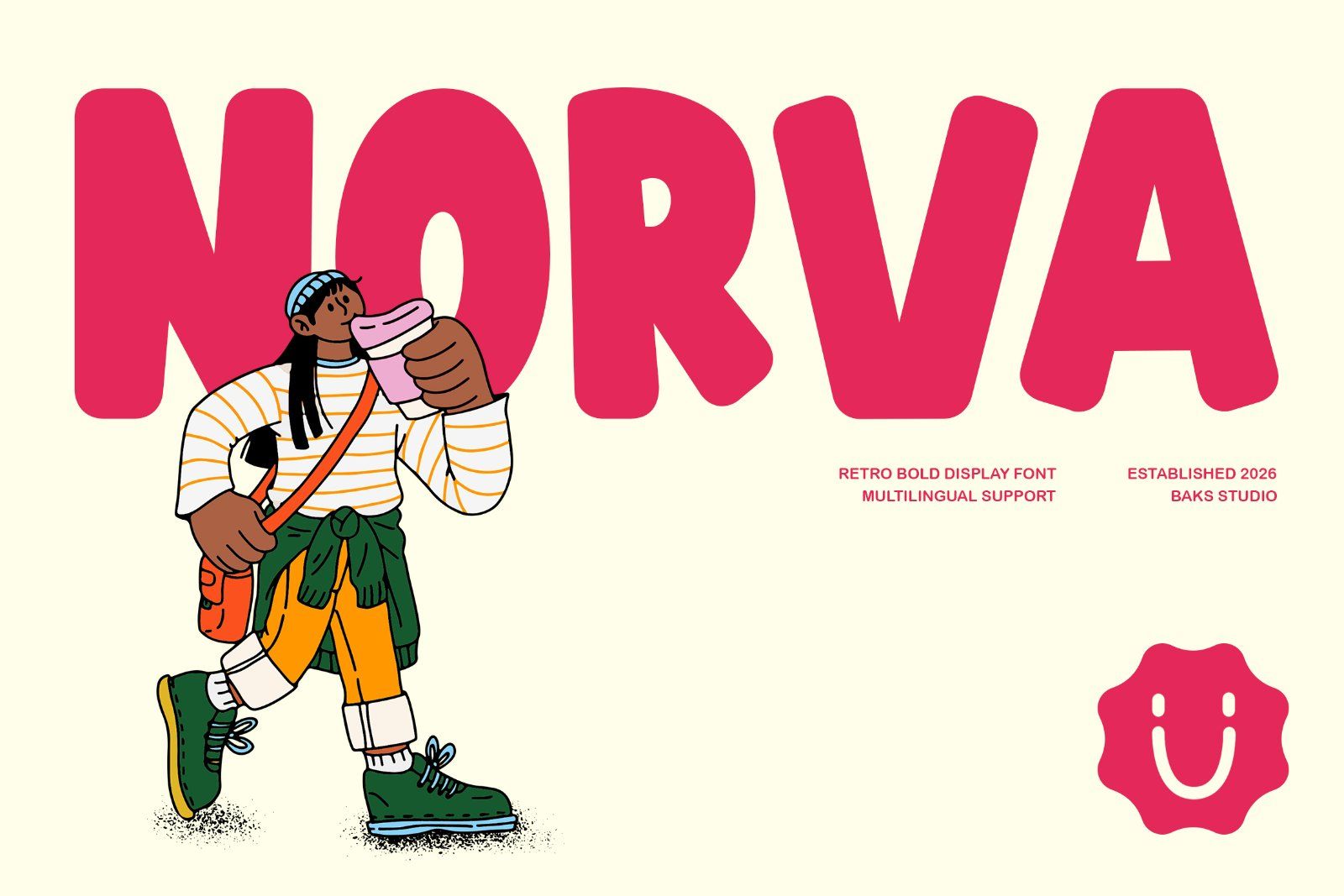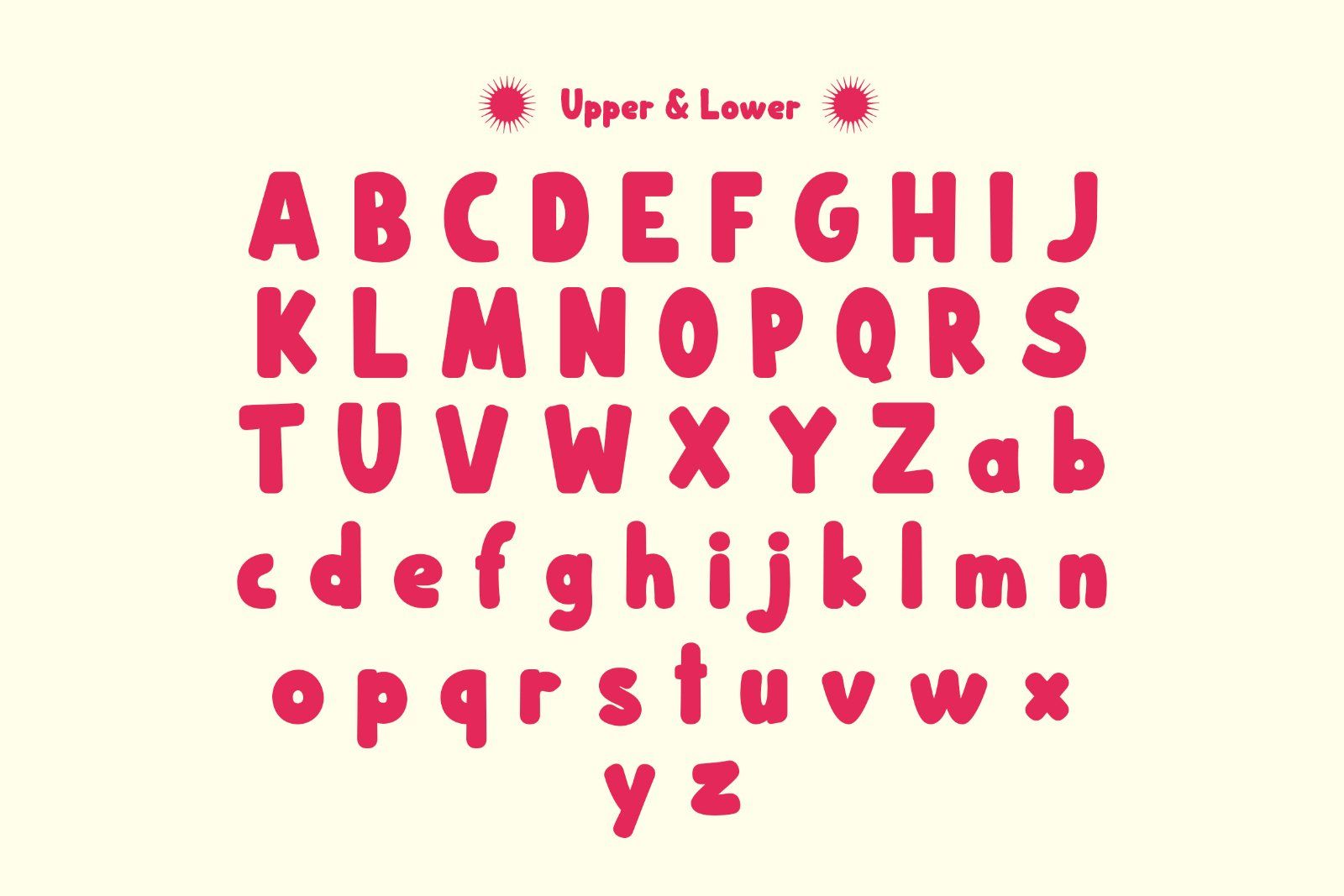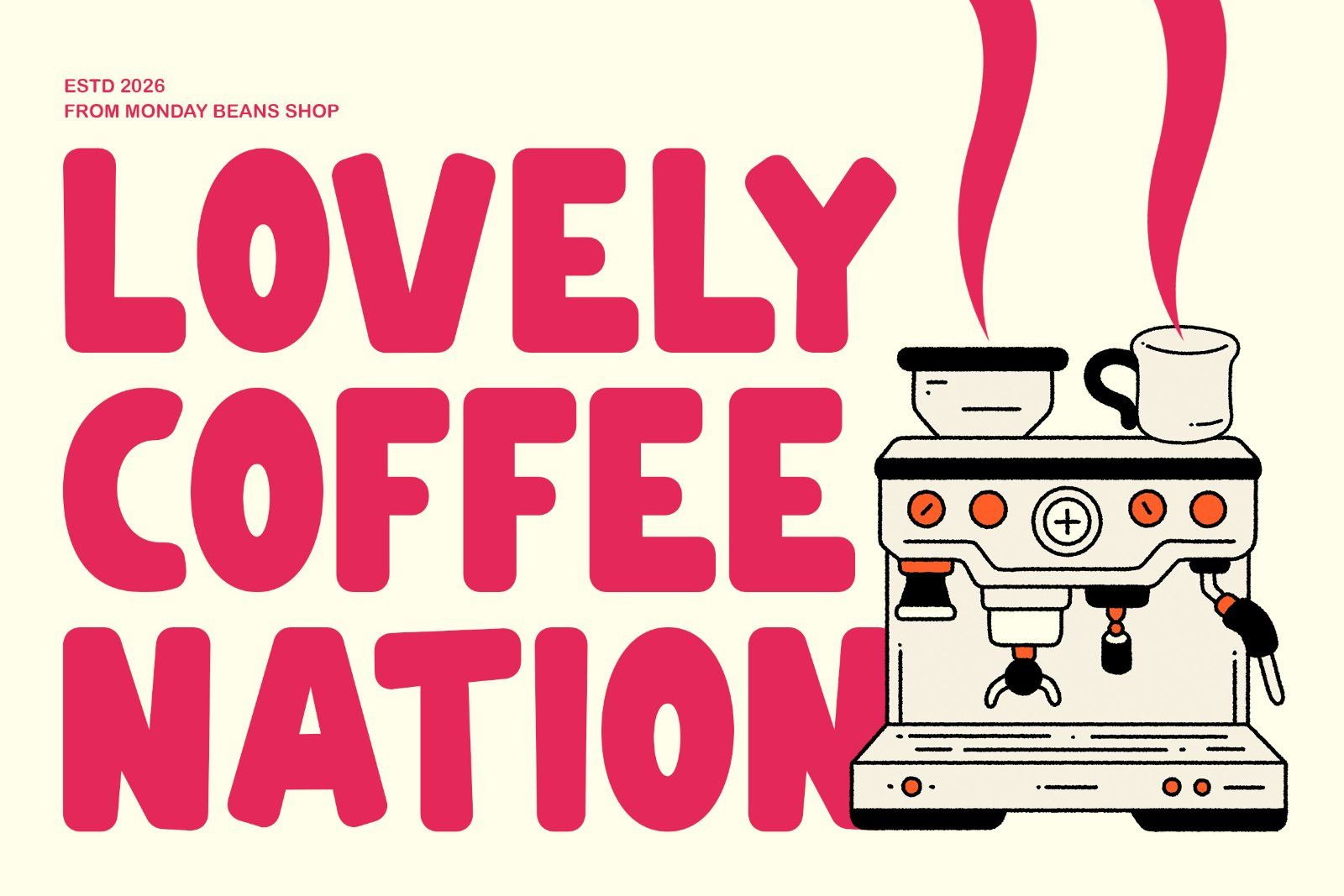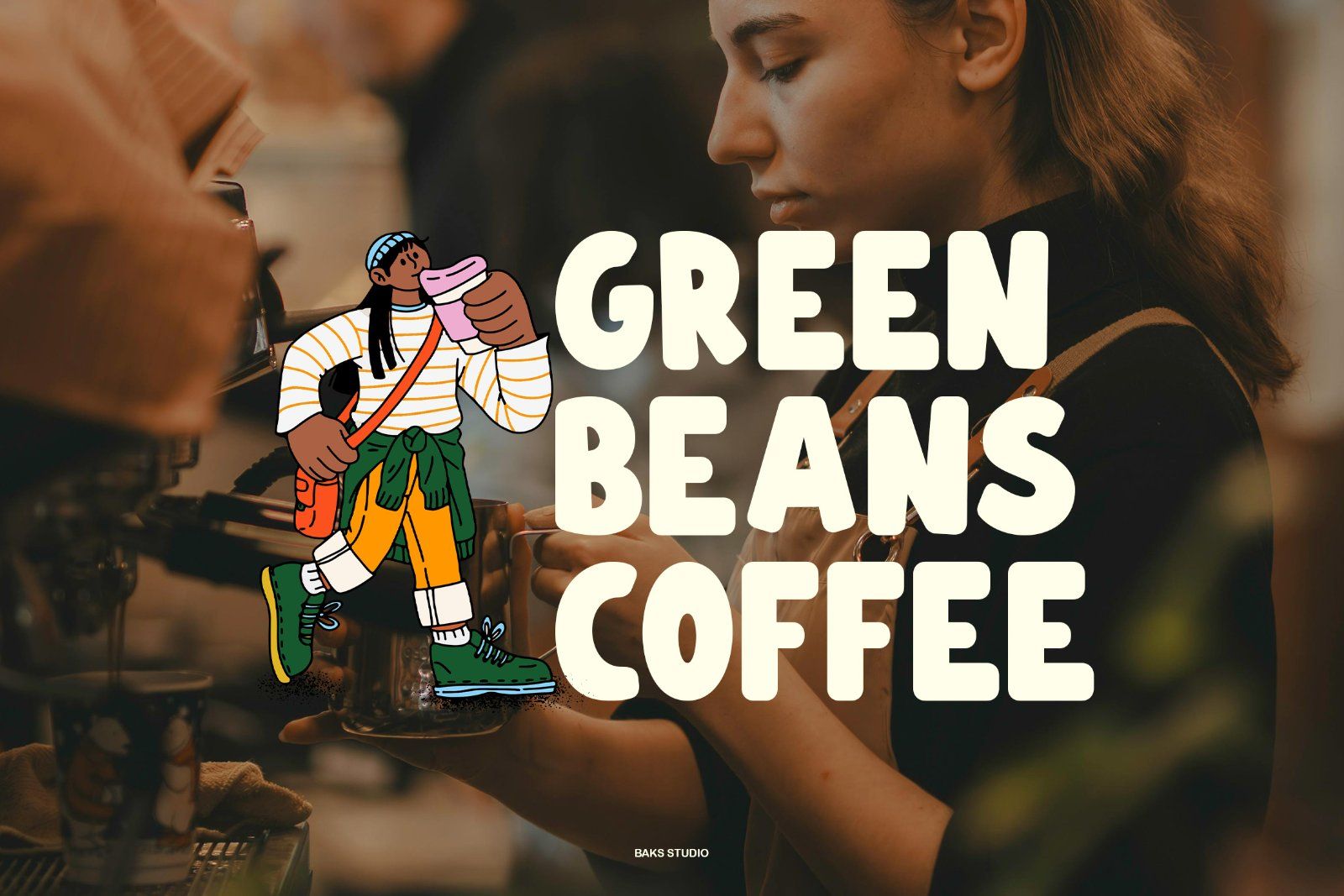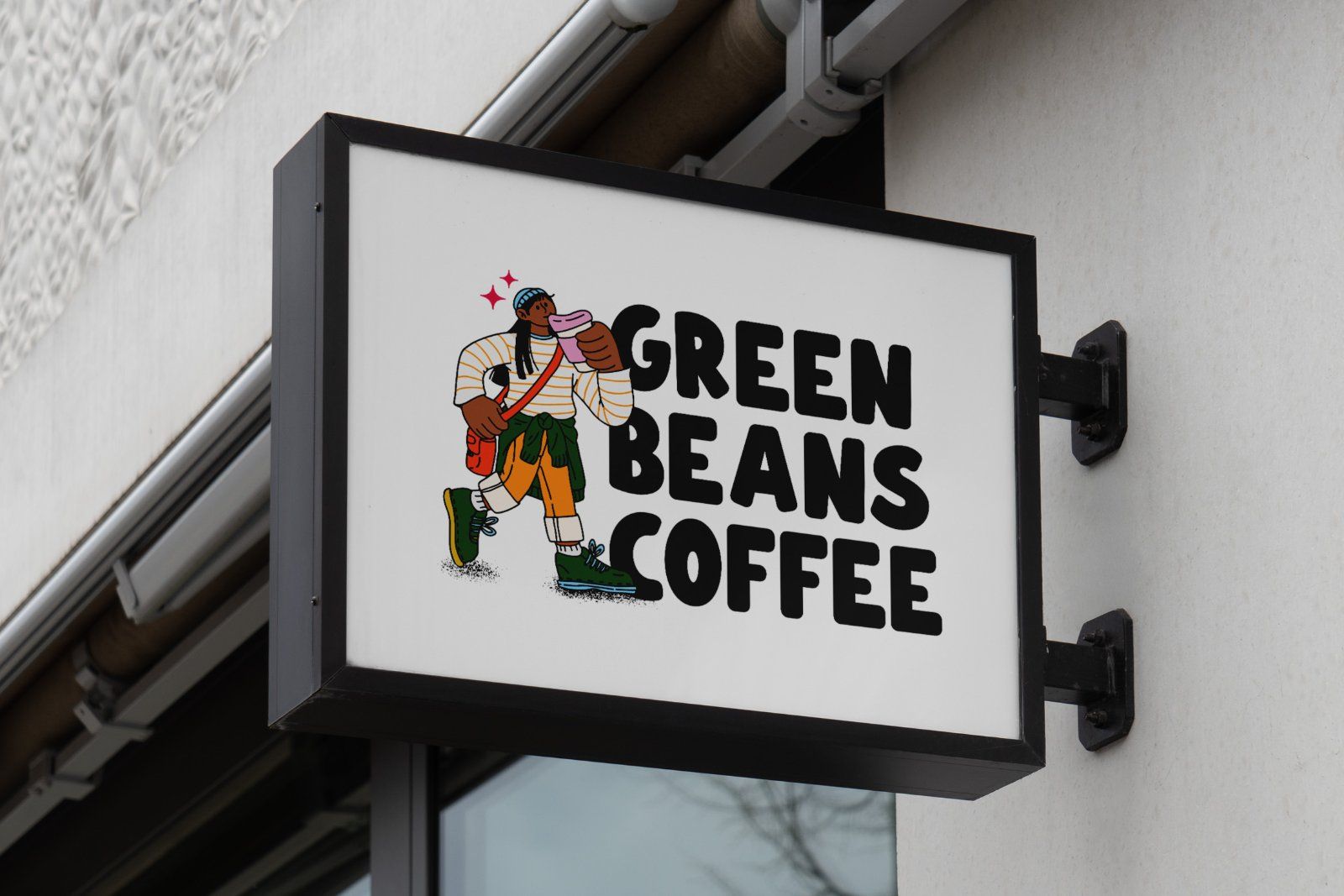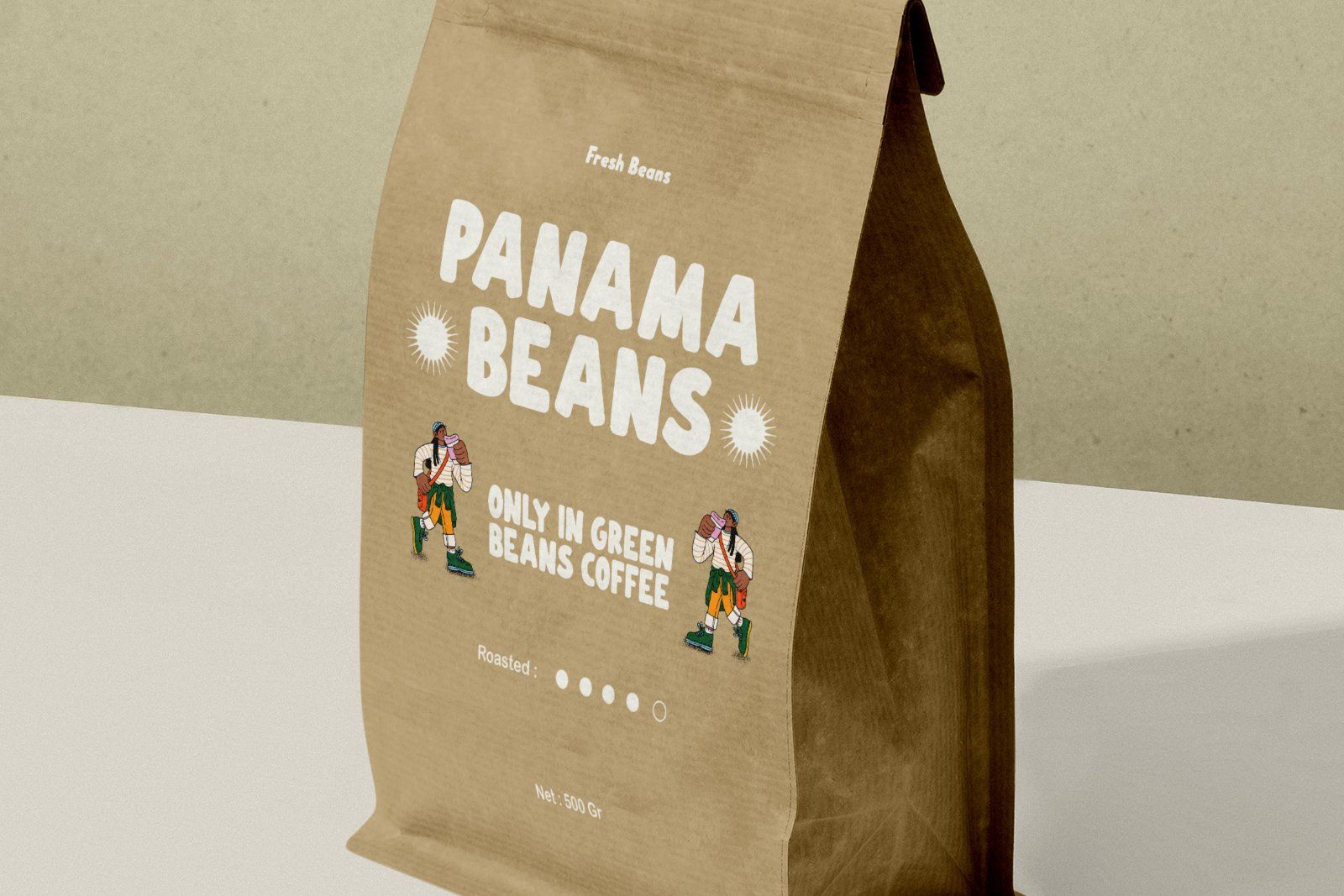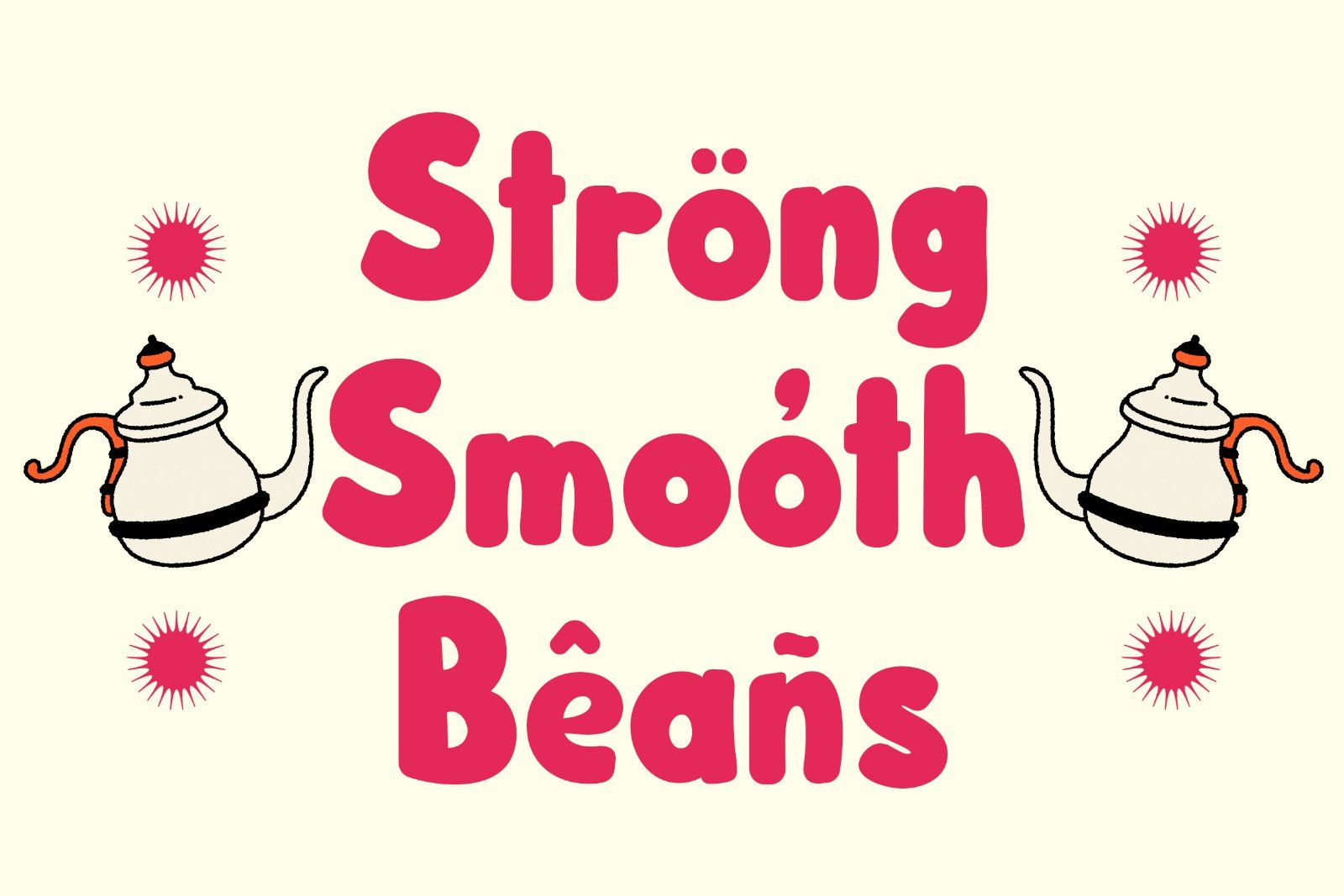
Norva is a retro bold display font that doesn’t just sit on the page it owns it. Born from a love of 1970s soft serve typography and modernized for the 2026 digital landscape, Norva features voluminous, bubble like strokes with smooth, rounded corners that radiate friendliness and confidence. It is the ultimate tool for designers who need to bridge the gap between nostalgic warmth and modern commercial sharpness.
Recommended Use Cases :
– Commercial Branding
– Merchandise Design
– Digital Content
– Packaging
Available with :
- Uppercase
- Lowercase
- Number
- Punctuation
- Multilingual